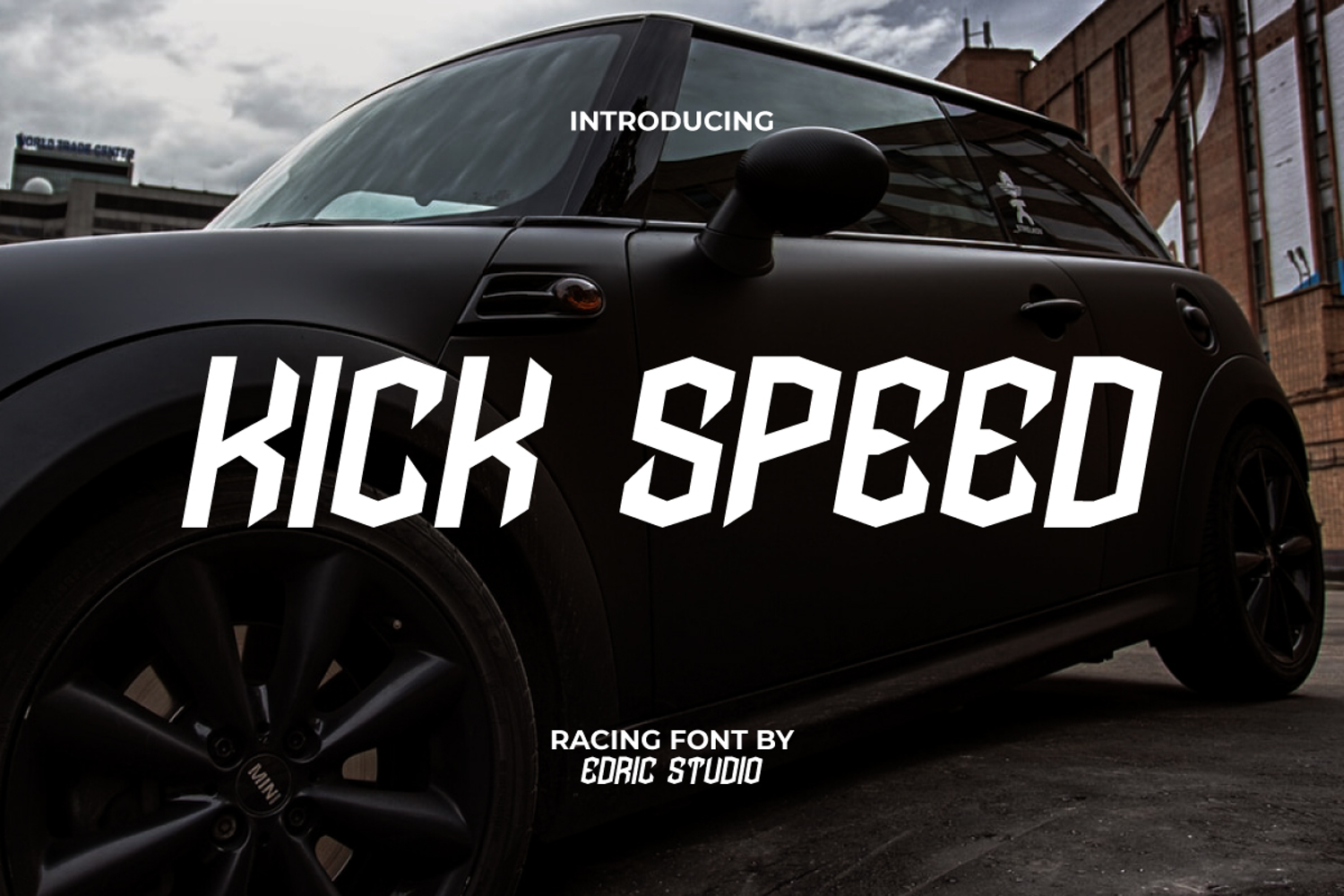
Kick Speed Font
Kick Speed Font is a racing and sporty display font with a retro vibes. The shape of the letters reflects the ancient style with sharp corners and forming hexagons, making it unique in its own style. It will be perfect for blogs, brand logo, brochure, business card, cover, label, posters, print on fabrics, stickers, and many more for projects related to sports and masculinity.
Kick Speed Font comes with a full set of ALL CAPS for Uppercase and Lowercase letters, Number, Punctuation, and Symbol. This font is able to adapt and stand out in anything because it integrates seamlessly in a variety of design contexts from digital interfaces to print media. Each character brings a sense of precision and complexity making the font an ideal choice for automotive, clothing brand, content creator, graphic design, photography, sportswear, etc.